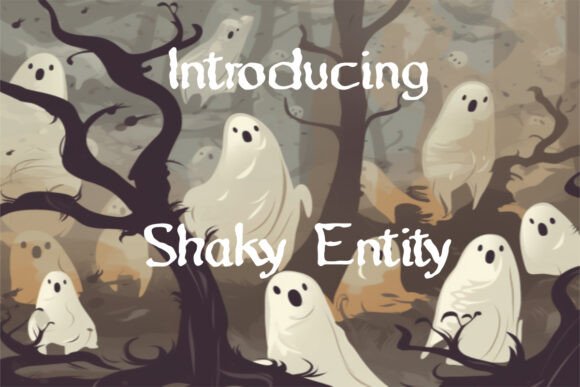
Introduction to Shaky Entity Font
Presenting ‘Shaky Entity’, an exceptionally versatile font.
Designed with precision, it renders an artistic flair perfect for diverse projects From enhancing the allure of shirts and stickers to creating standout branding, this font adds a unique touch.
Key Features of Shaky Entity Font
Why Choose Shaky Entity Font?
Shaky Entity Font offers exceptional quality and versatility, making it a valuable addition to your design toolkit. Whether you’re creating for personal projects or commercial use, Shaky Entity Font delivers professional results.